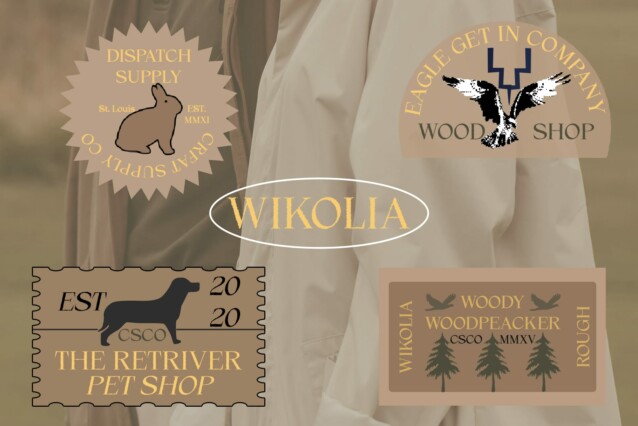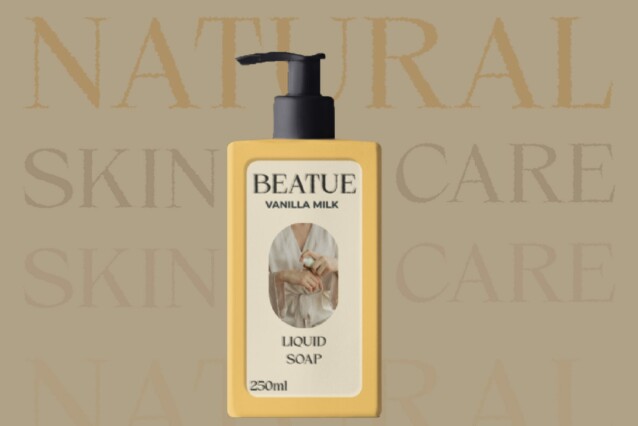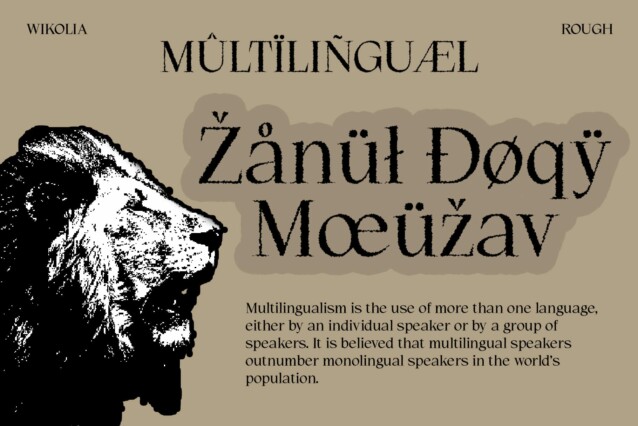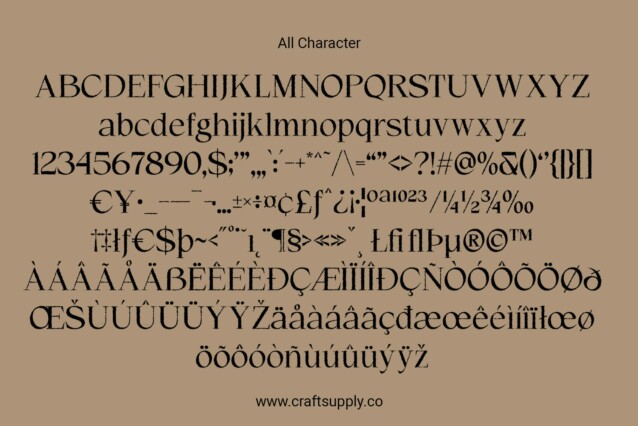
Wikolia Rough Font
Wikolia Rough Font is a unique serif translation design that adds a distinctive touch to any project. Its elegant serif characters are imbued with personality and charm.
Rough Effect The font is enhanced with a rough effect, giving it a rugged and textured appearance that sets it apart. Each character exudes authenticity and adds depth to your designs.